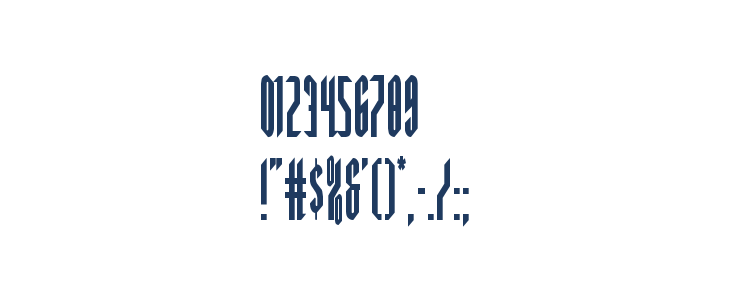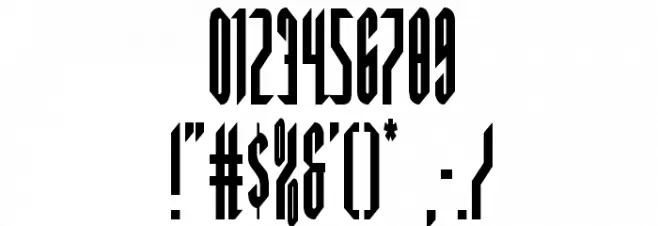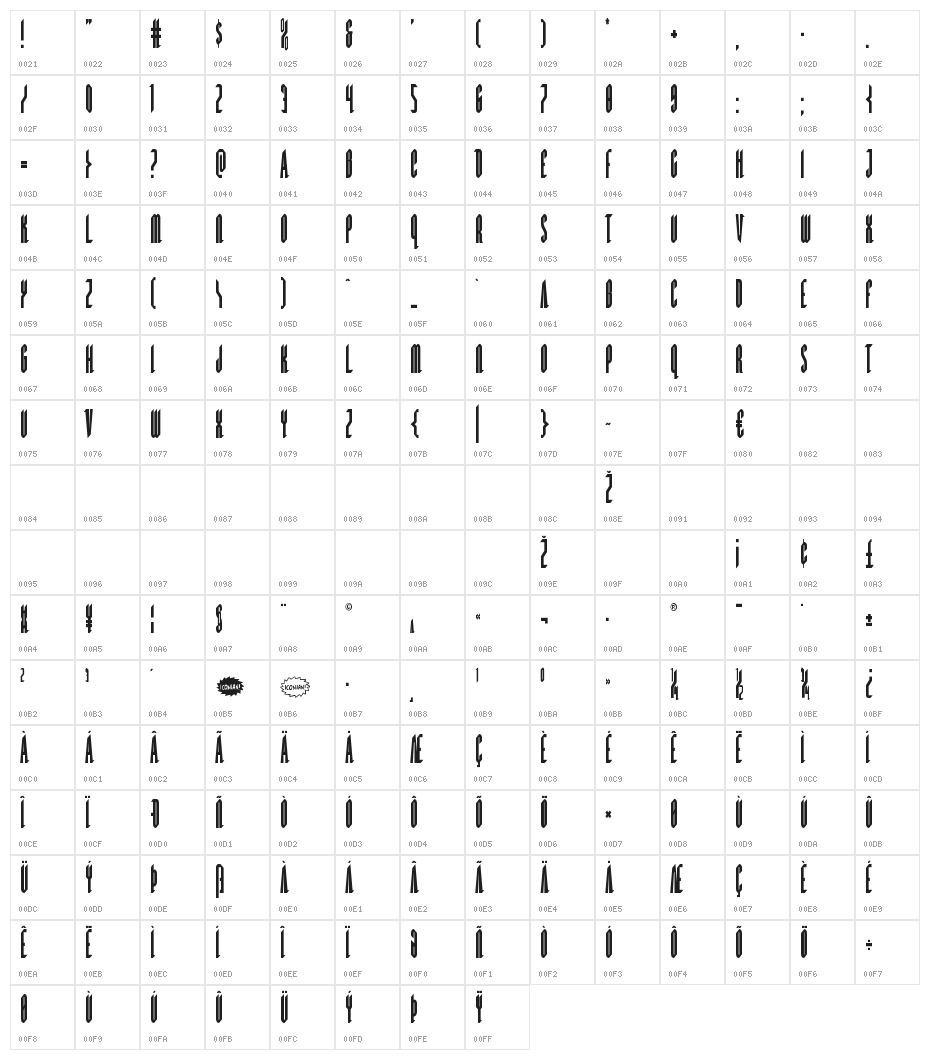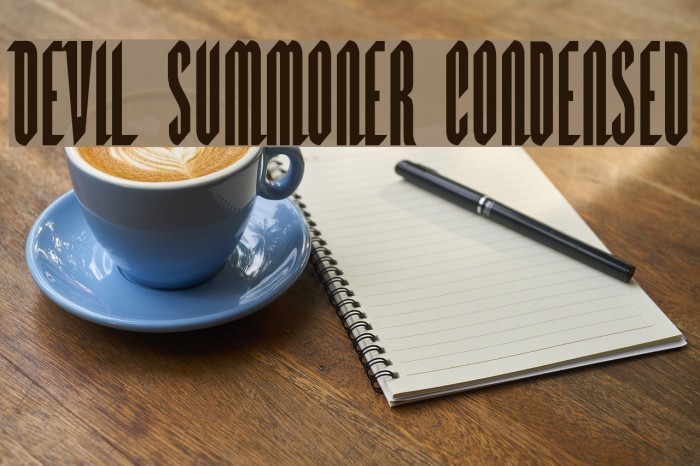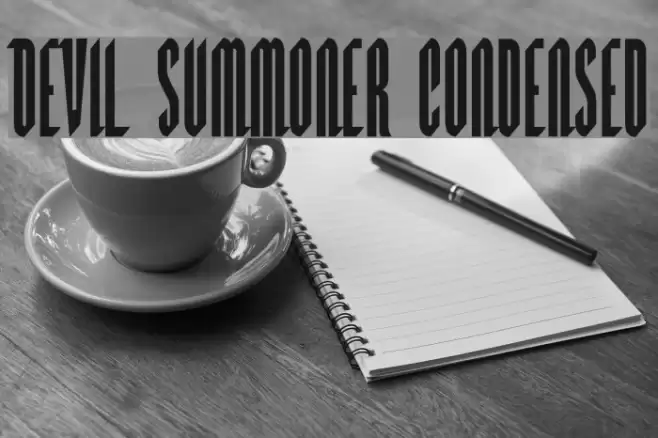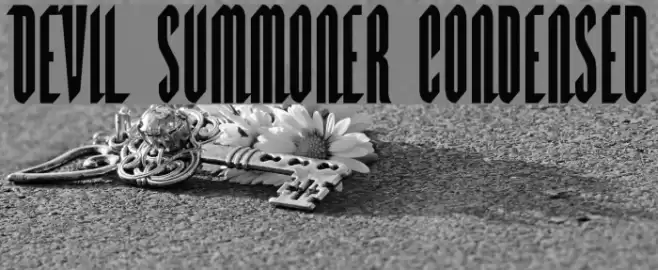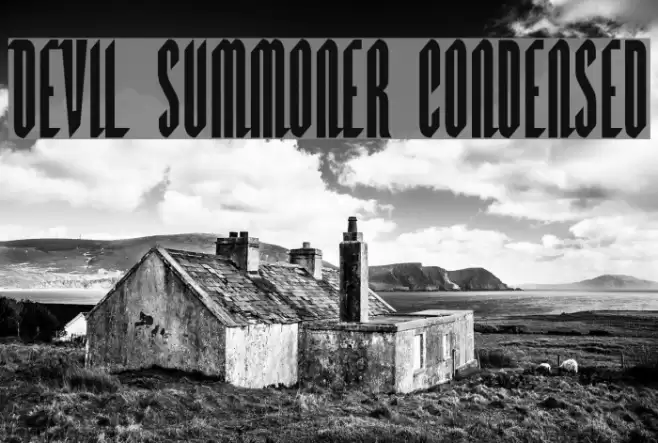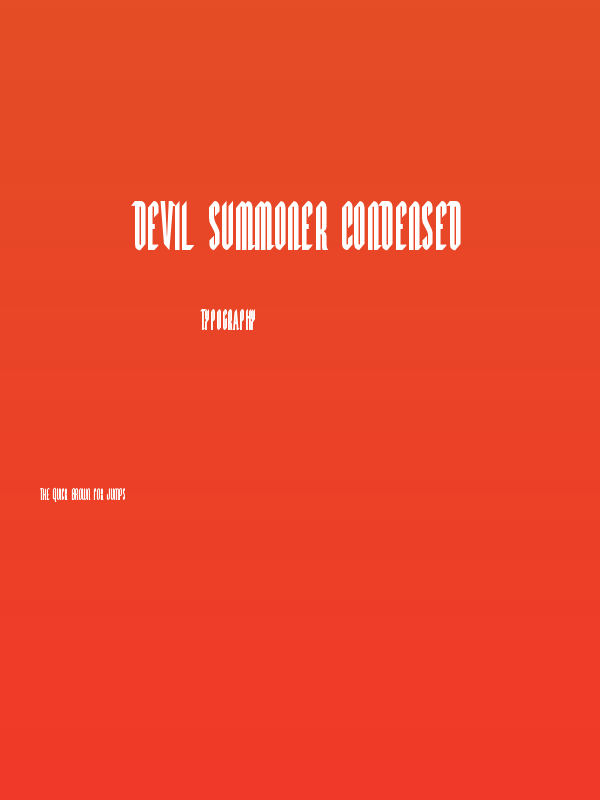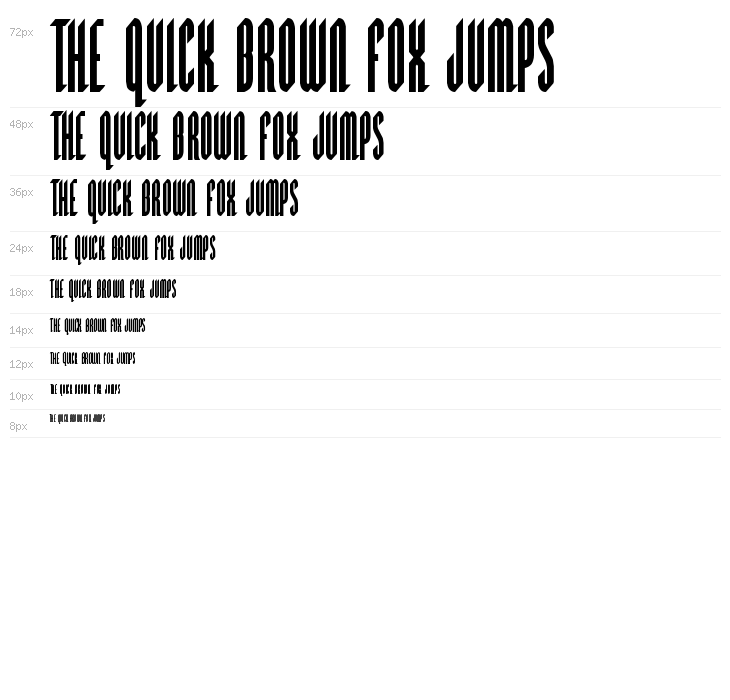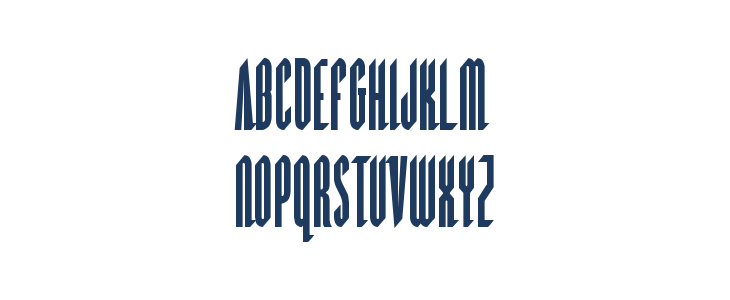
Devil Summoner Condensed Font
Devil Summoner Condensed Description
This font features a bold and condensed style with a distinct gothic influence. The characters are tall and narrow, with sharp angles and pointed edges that give it a dramatic and striking appearance. The uppercase letters are particularly elongated, emphasizing the verticality of the design. The numerals and special characters maintain the same condensed and angular style, ensuring consistency across all glyphs. This font's unique aesthetic is reminiscent of vintage horror or fantasy themes, making it ideal for projects that require a bold and eye-catching typeface.
| Overall Style | Gothic, Dramatic, Vintage |
| Proposed Projects | Ideal for horror-themed posters, fantasy book covers, video game titles, and branding for edgy or alternative products. |